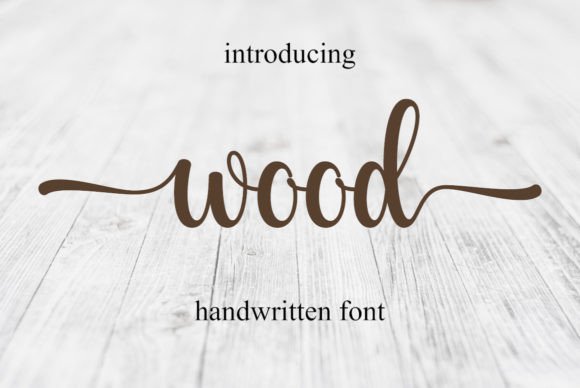
Dive into a world of creativity with Wood Font, the captivating script font family that will ignite your imagination. Designed by Hardiboy Design, this enchanting font collection embodies the allure of the natural world, capturing the essence of a peaceful stroll through a whispering forest.
Wood Font is more than just a font; it's an experience. Its gentle curves and flowing lines dance across the page, evoking a sense of tranquility and harmony. Whether you're a seasoned designer or just starting, Wood Font will elevate your projects with its inherent charm and elegance.
As a script font, Wood Font possesses an inherent versatility that makes it suitable for a wide range of projects. Its delicate strokes and organic feel make it an ideal choice for wedding invitations, greeting cards, and any design where a personal touch is desired. Unleash your creativity and explore the limitless possibilities that Wood Font offers.
But Wood Font's beauty is not confined to traditional mediums. Its digital prowess shines through in the realm of social media, web design, and branding. Create eye-catching logos, captivating social media posts, and stunning website designs that leave a lasting impression. Let Wood Font be your creative companion as you conquer the digital world.
With Wood Font, the possibilities are truly endless. Dive into a sea of inspiration and let your creativity flourish. It's the perfect font for adding a touch of whimsy and wonder to your designs, leaving your audience enchanted and captivated. Embrace the beauty of nature through the artistry of Wood Font.